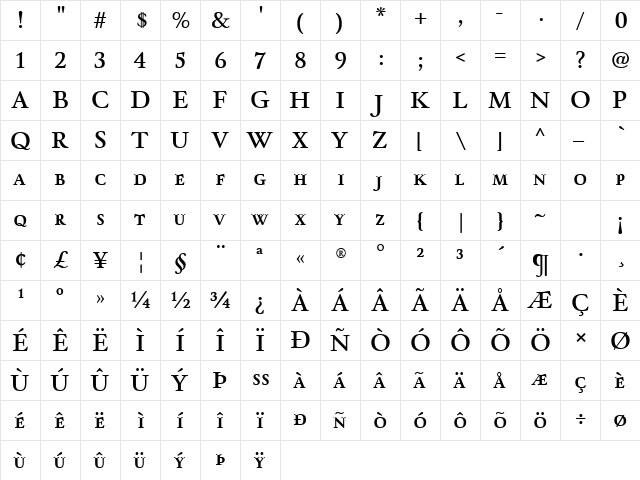
Winthorpe SmallCaps SemiBold
DesignerRay Larabie
Design Context for Winthorpe Typeface
Winthorpe offers clean, dependable letterforms without strong stylistic allegiance, making it a practical choice for designers who need flexibility. Its bold stroke weight gives it real presence on the page.
Pro Tip: Pair Winthorpe with a font of contrasting weight or personality to build a more expressive typographic hierarchy.